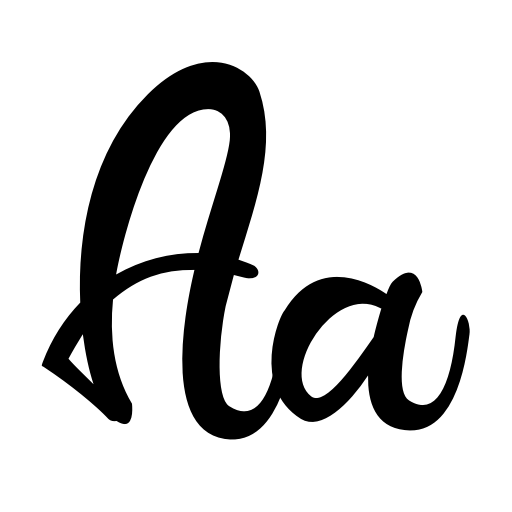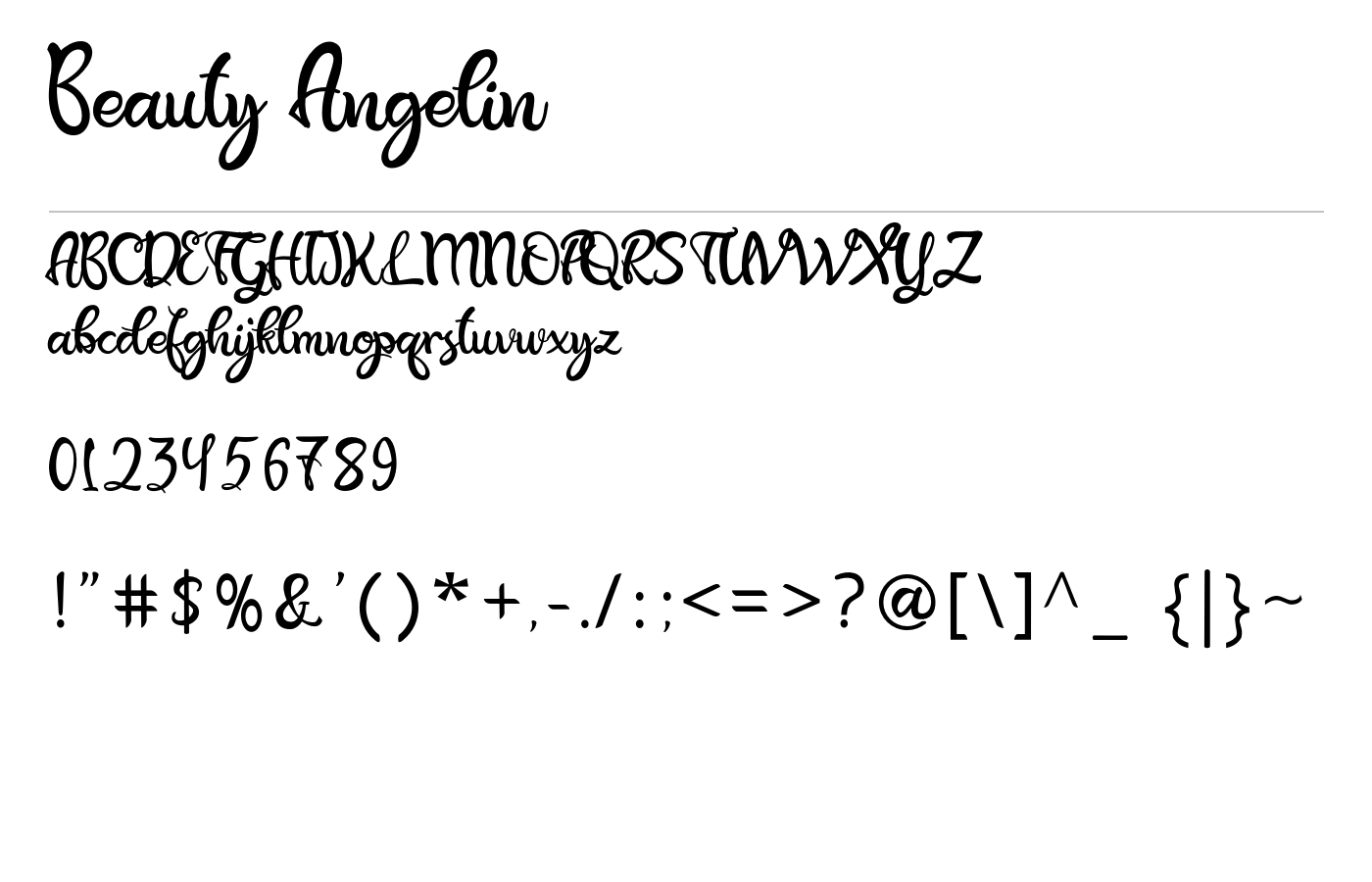
Beauty Angelin is a playful and elegant script font with a lively, hand-drawn feel. Its flowing letterforms and slightly whimsical curves make it perfect for creative and feminine designs, such as invitations, branding, or social media graphics where a friendly yet stylish look is desired. This font brings a personal and artistic touch, ideal for adding charm and personality to any project.
Beauty Angelin Font
About Beauty Angelin Font
| Font family | Beauty Angelin Font |
| Designer | Burhanul jauhar a |